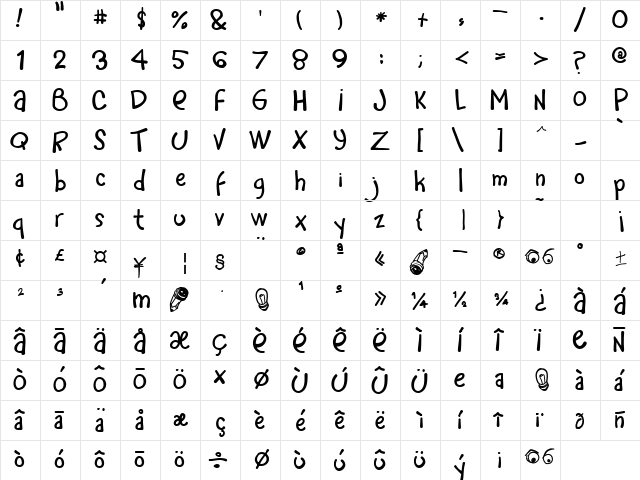
Rafa Bold Font Preview
Rafa Bold
Design Context for Rafa Typeface
Rafa is a composed and adaptable typeface that performs quietly and consistently across a wide range of design contexts. The heavy weight commands attention and anchors typographic hierarchies.
Pro Tip: Use Rafa in both headline and body roles to test its range before committing to a single application.